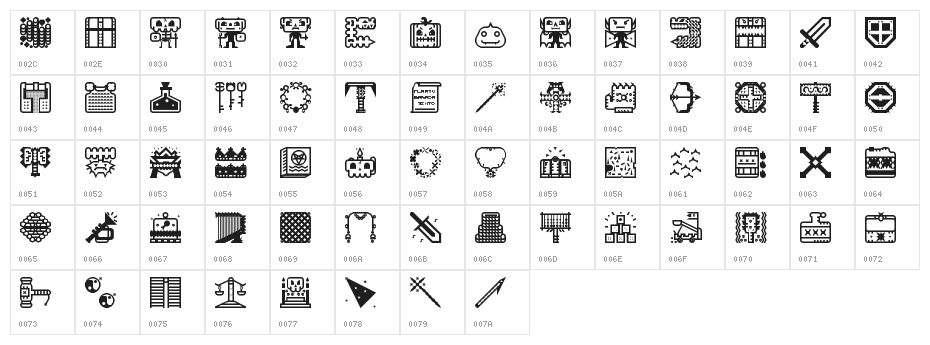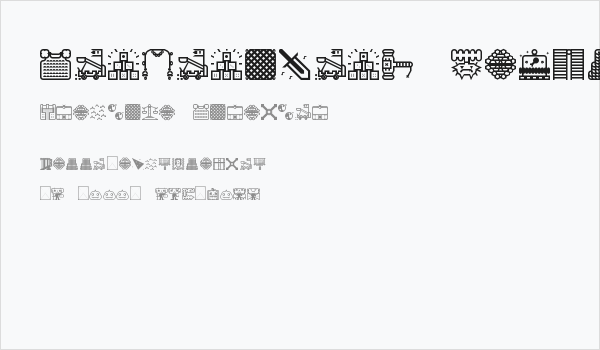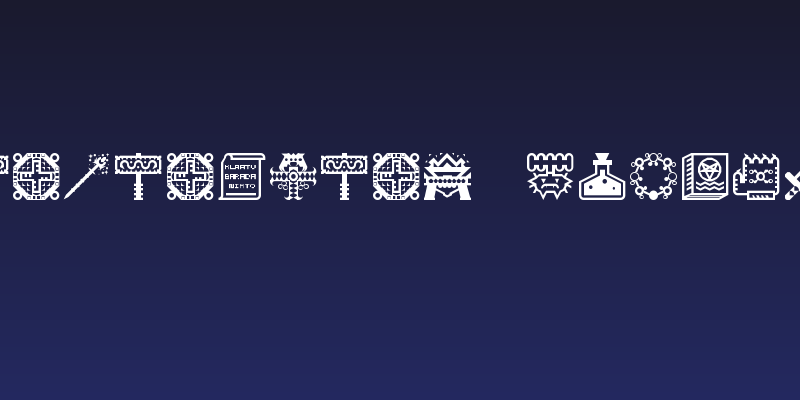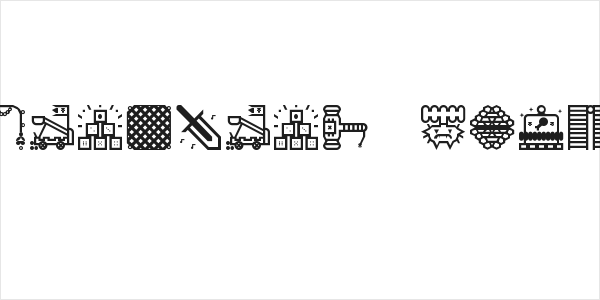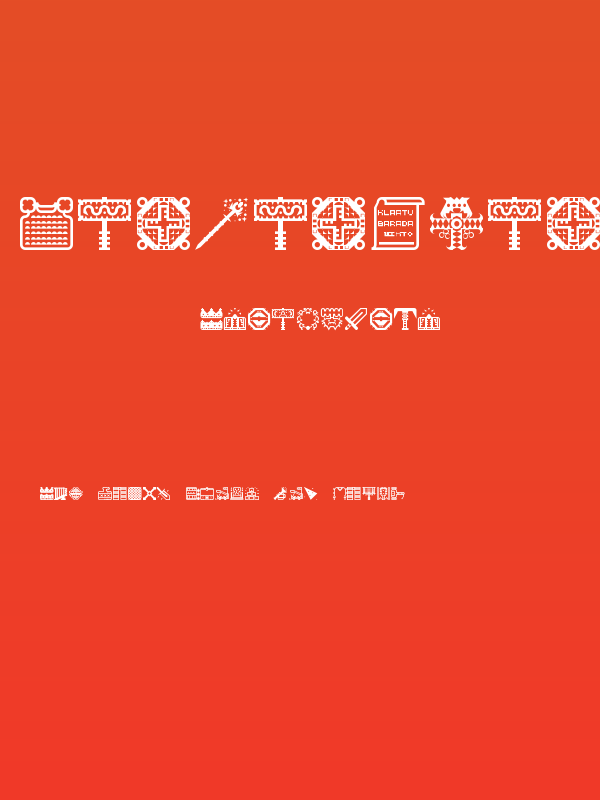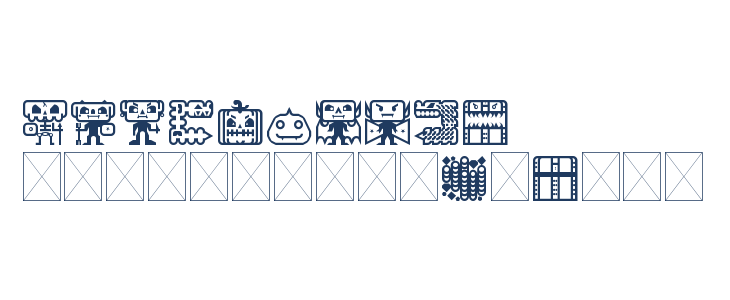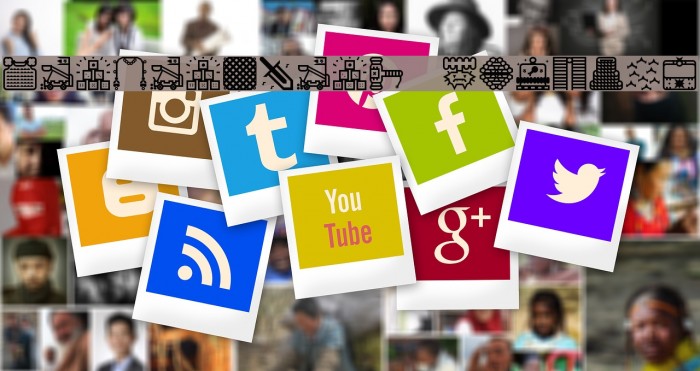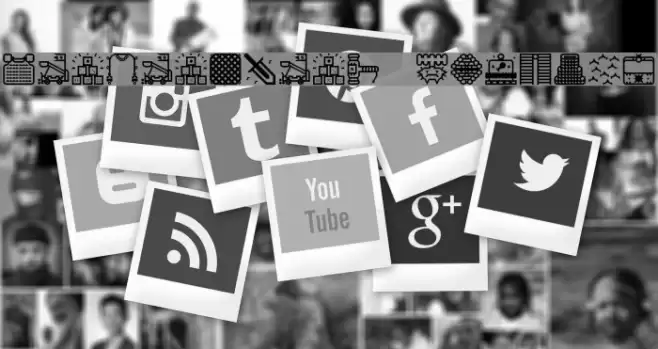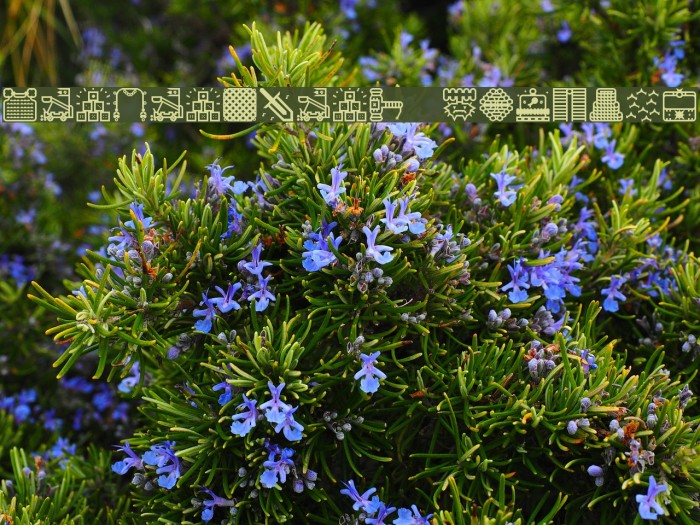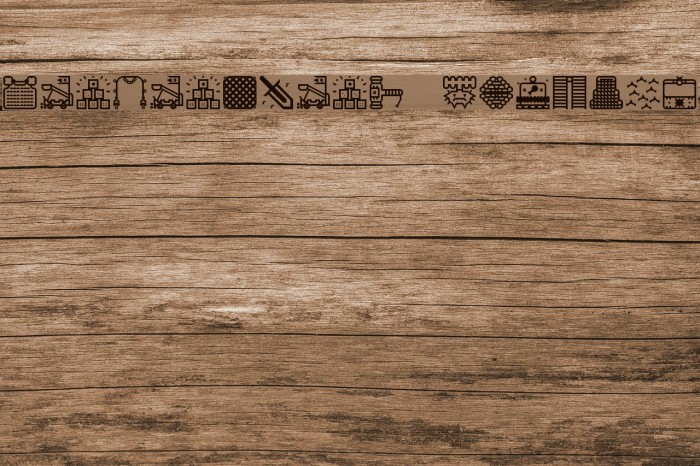
Donjonikons Regular Font
Donjonikons Regular Description
This set of icons features a diverse array of medieval and fantasy-themed symbols. Each icon is intricately designed with a high level of detail, showcasing elements such as swords, shields, potions, and mythical creatures. The style is bold and graphic, with a consistent line weight that gives each icon a strong presence. The icons are perfect for use in games, fantasy-themed projects, or any design that requires a touch of medieval flair. The collection includes a variety of shapes and motifs, from weapons and armor to magical artifacts and creatures, all rendered in a cohesive style that ties the set together.
| Use Case | Icons, Decorative elements |
| Proposed Projects | Ideal for game design, fantasy-themed websites, educational materials on medieval history, or decorative elements in themed events. |